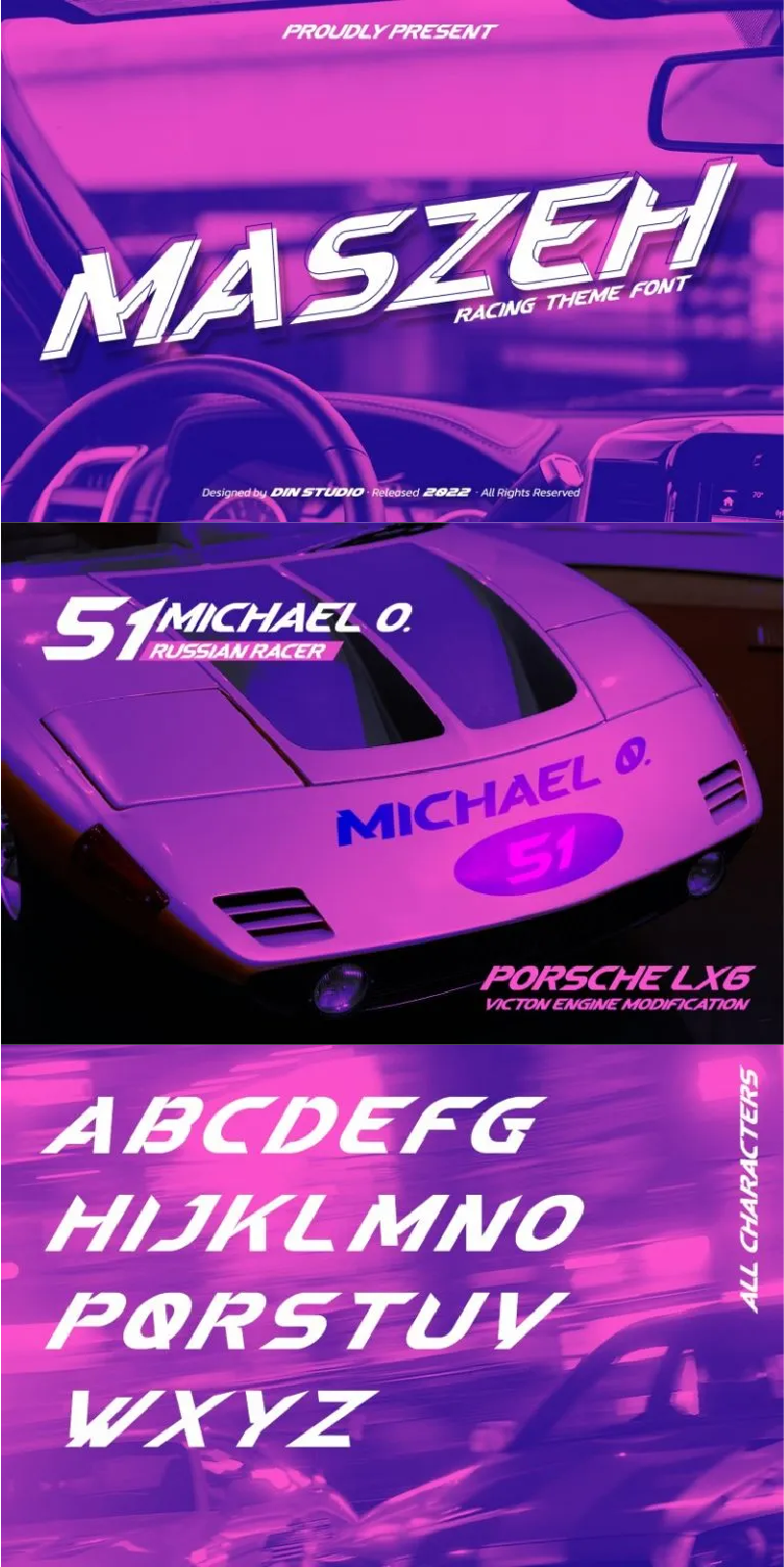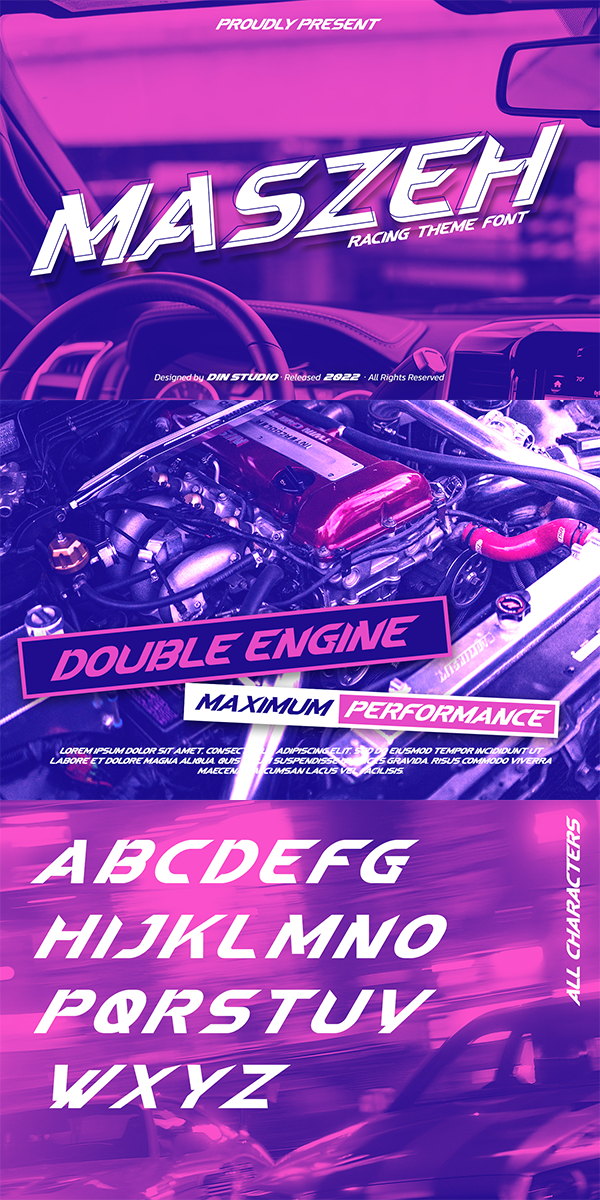
Maszeh Font
About Maszeh
It’s time to see our impressive font, Maszeh. It is a firm font to escalate your design level higher. In line with the racing theme, this font creates brave strong impressions on your designs and is aimed to be used in any larger-sized texts such as titles than the body texts. Enjoy other incredible features available on this font.
Use Maszeh for any design projects such as posters, banners, logos, book covers, headings, printed products, merchandise, social media, and so on. Find out more ways to use this font by taking a look at the font preview.